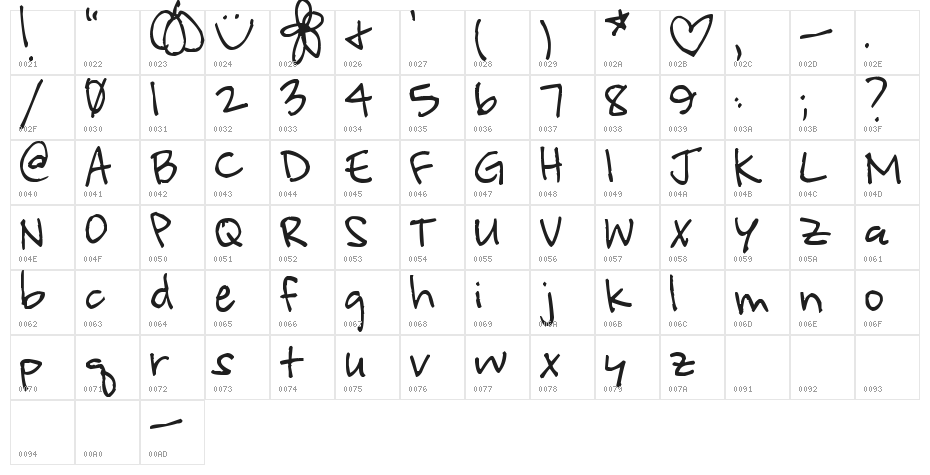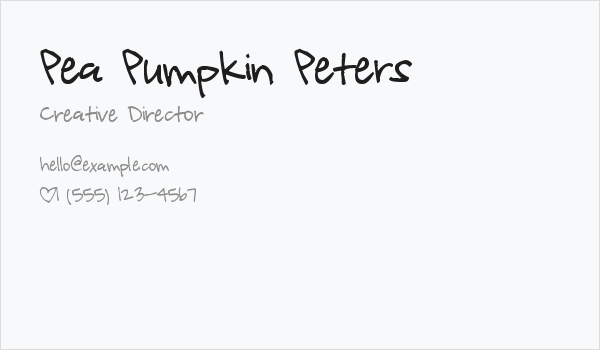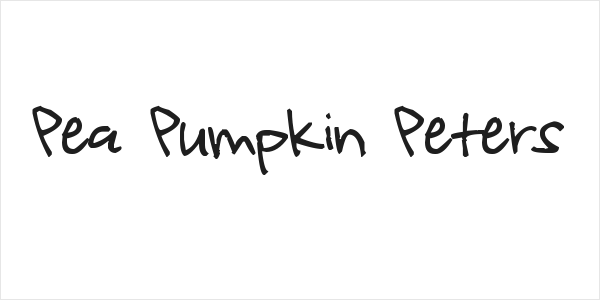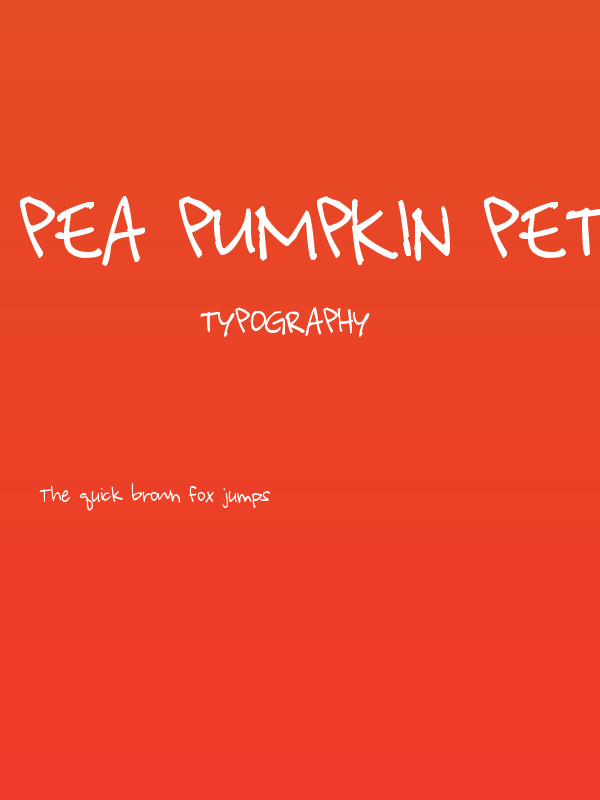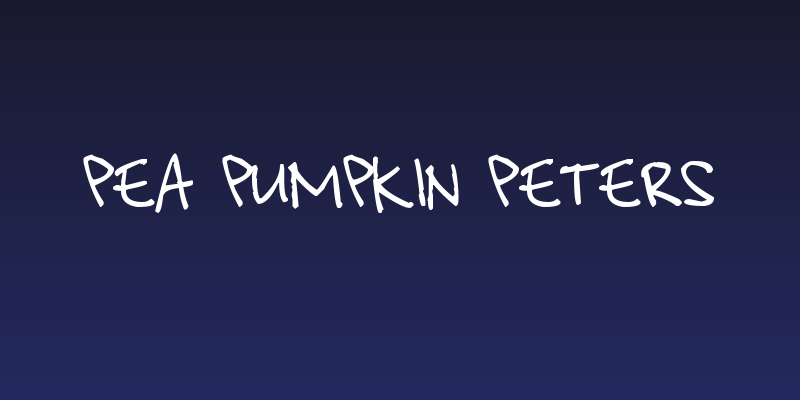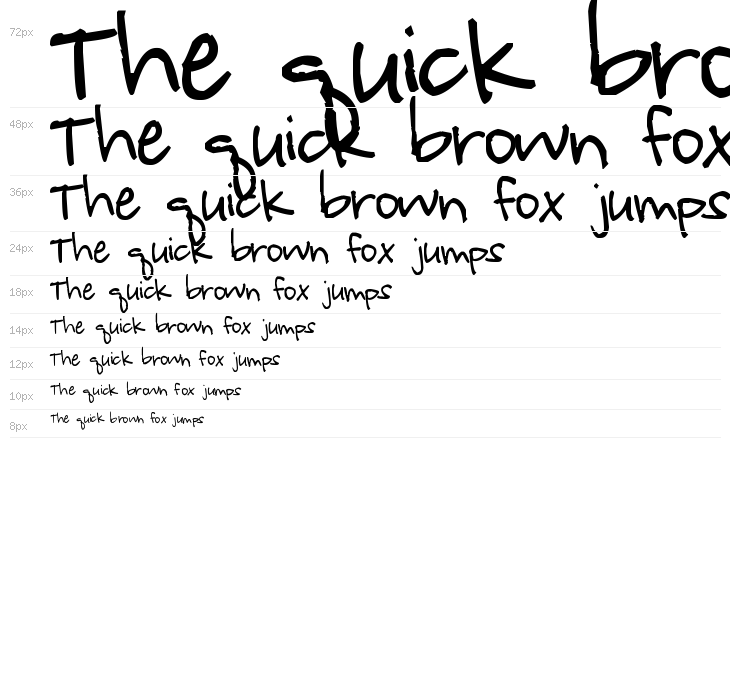
Pea Pumpkin Peters Font
Pea Pumpkin Peters Description
This font exudes a playful and casual handwritten style, characterized by its irregular strokes and spontaneous appearance. The letters are crafted with a natural flow, giving the impression of being quickly jotted down with a marker or pen. The uppercase and lowercase letters maintain a consistent style, with slight variations that add to the font's charm. Numbers and special characters are integrated seamlessly, maintaining the same lively and informal aesthetic. The overall look is approachable and friendly, making it ideal for projects that require a personal touch.
| Use Case | Headlines, Informal text, Personal projects |
| Proposed Projects | Ideal for greeting cards, children's books, personal blogs, and informal branding projects. |